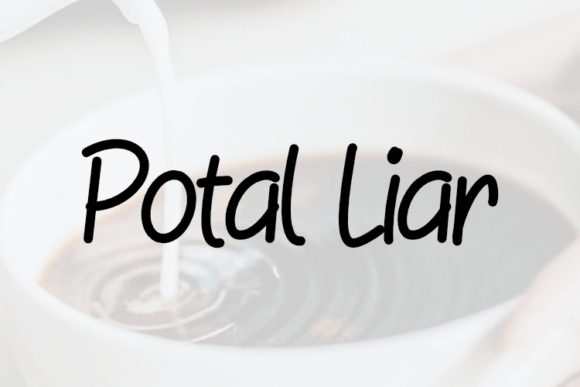
Potal Liar Font: The Ultimate Casual Handwritten Font for Creative Projects
In the world of typography, fonts play a crucial role in conveying the tone and personality of a brand or creative project. Among the numerous fonts available, Potal Liar stands out as a casual handwritten font that has gained popularity for its unique blend of smooth, rounded strokes and a relaxed, friendly vibe. In this article, we’ll explore the features and benefits of Potal Liar, and how it can elevate your creative projects to the next level.
Key Features of Potal Liar Font
Potal Liar is a carefully crafted font that boasts several key features, making it an ideal choice for a wide range of creative projects. Some of its notable features include:
- Smooth, rounded strokes: Potal Liar’s smooth, rounded strokes give it a friendly and approachable feel, making it perfect for projects that require a personal touch.
- Clean letterforms: The font’s clean letterforms ensure clarity and readability, even at small font sizes.
- Natural flow: Potal Liar’s natural flow and well-balanced spacing make it easy to read and visually appealing.
- Subtle handwritten quirks: The font’s subtle handwritten quirks add warmth and character to any design, making it perfect for projects that require a personal touch.
Ideal Use Cases for Potal Liar Font
Potal Liar’s versatility makes it suitable for a wide range of creative projects, including:
- Quotes: Potal Liar’s smooth, rounded strokes and clean letterforms make it perfect for quotes that require a personal touch.
- Social media posts: The font’s friendly and approachable feel makes it ideal for social media posts that require a casual tone.
- Branding: Potal Liar’s unique blend of smooth, rounded strokes and subtle handwritten quirks makes it perfect for branding projects that require a personal yet polished touch.
- Packaging: The font’s clean letterforms and natural flow make it suitable for packaging projects that require a clear and readable font.
- Invitations: Potal Liar’s friendly and approachable feel makes it perfect for invitations that require a personal touch.
Readability and Versatility of Potal Liar Font
One of the key benefits of Potal Liar is its exceptional readability and versatility. The font’s well-balanced spacing and clear letterforms ensure that it works beautifully in both small text and bold headlines. This makes it perfect for projects that require a font that can adapt to different use cases, such as:
- Digital graphics: Potal Liar’s smooth, rounded strokes and clean letterforms make it perfect for digital graphics, such as social media posts, blog headers, and website titles.
- Print materials: The font’s natural flow and subtle handwritten quirks make it suitable for print materials, such as brochures, flyers, and business cards.
Benefits of Using Potal Liar Font
By using Potal Liar, you can elevate your creative projects in several ways:
- Add a personal touch: Potal Liar’s friendly and approachable feel makes it perfect for projects that require a personal touch.
- Enhance readability: The font’s clear letterforms and well-balanced spacing ensure exceptional readability, even at small font sizes.
- Increase versatility: Potal Liar’s adaptability makes it suitable for a wide range of creative projects, from digital graphics to print materials.
- Stand out from the crowd: The font’s unique blend of smooth, rounded strokes and subtle handwritten quirks makes it perfect for projects that require a distinctive touch.
Tips for Using Potal Liar Font
To get the most out of Potal Liar, here are some tips to keep in mind:
- Pair it with other fonts: Potal Liar can be paired with other fonts to create a unique and visually appealing combination.
- Experiment with font sizes: The font’s exceptional readability makes it suitable for use at a wide range of font sizes.
- Use it consistently: To create a cohesive look, use Potal Liar consistently throughout your project.
In conclusion, Potal Liar is a versatile and approachable font that can elevate your creative projects to the next level. Its unique blend of smooth, rounded strokes and subtle handwritten quirks makes it perfect for projects that require a personal yet polished touch. By using Potal Liar, you can add a personal touch, enhance readability, increase versatility, and stand out from the crowd.